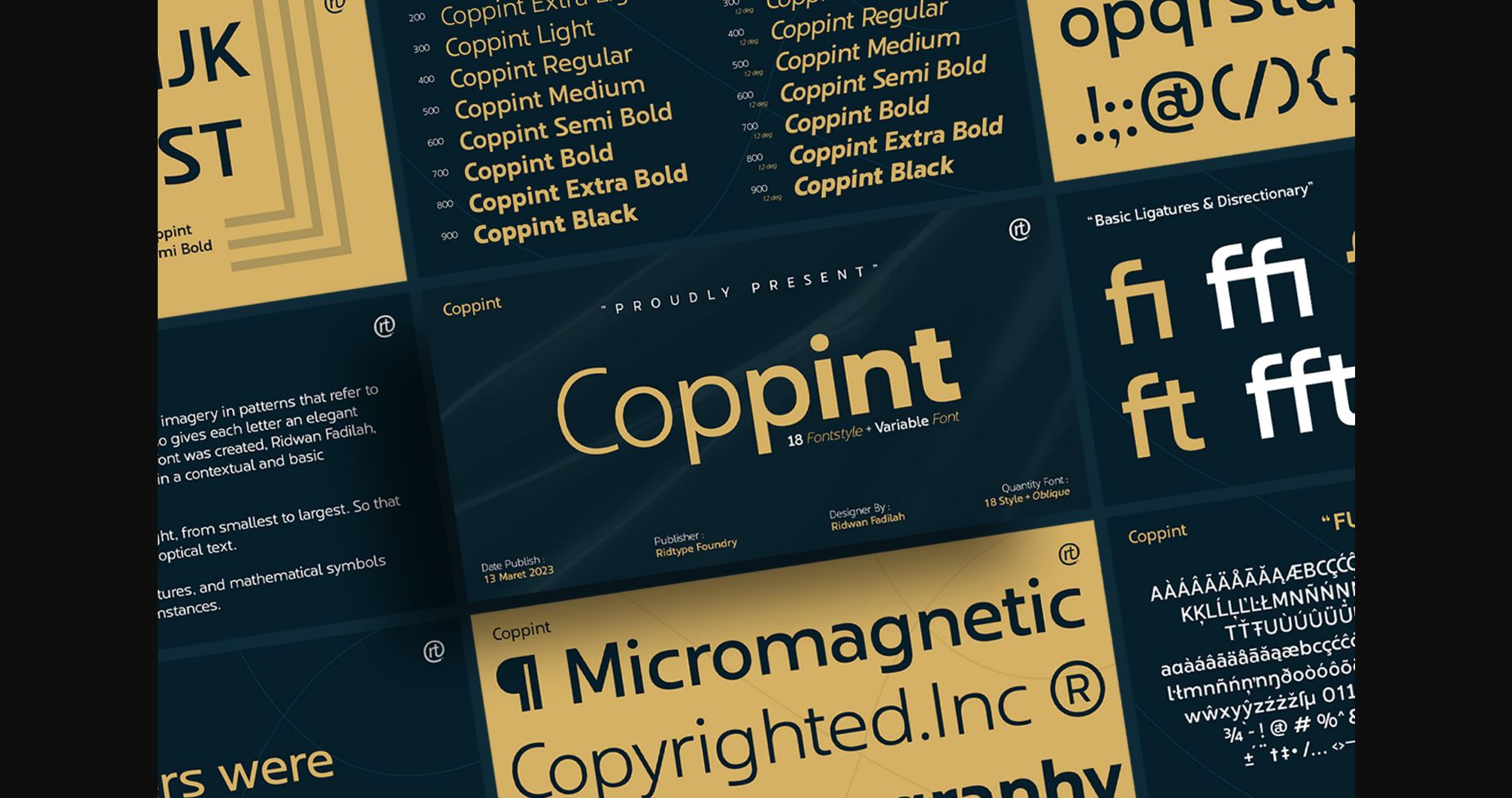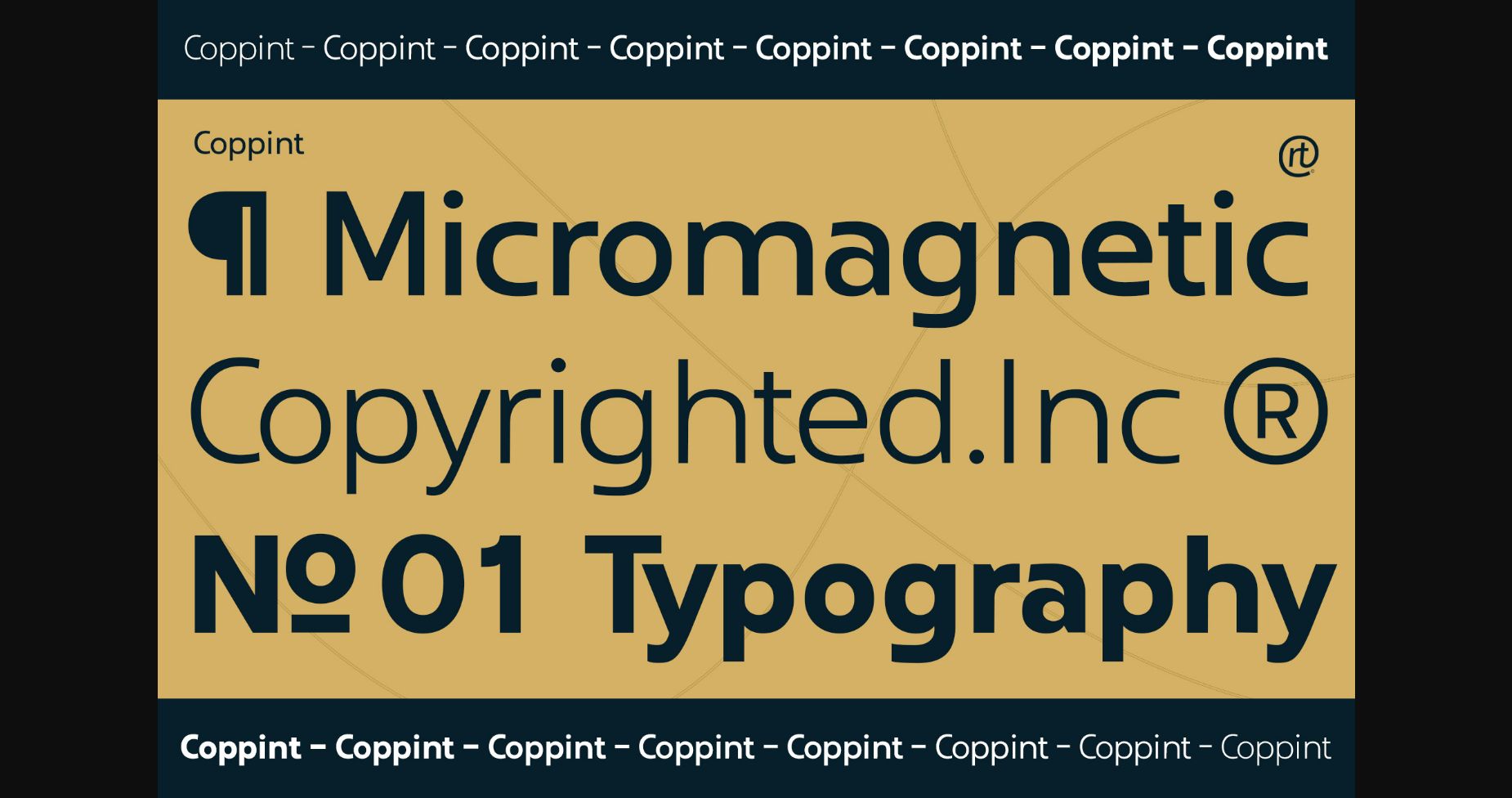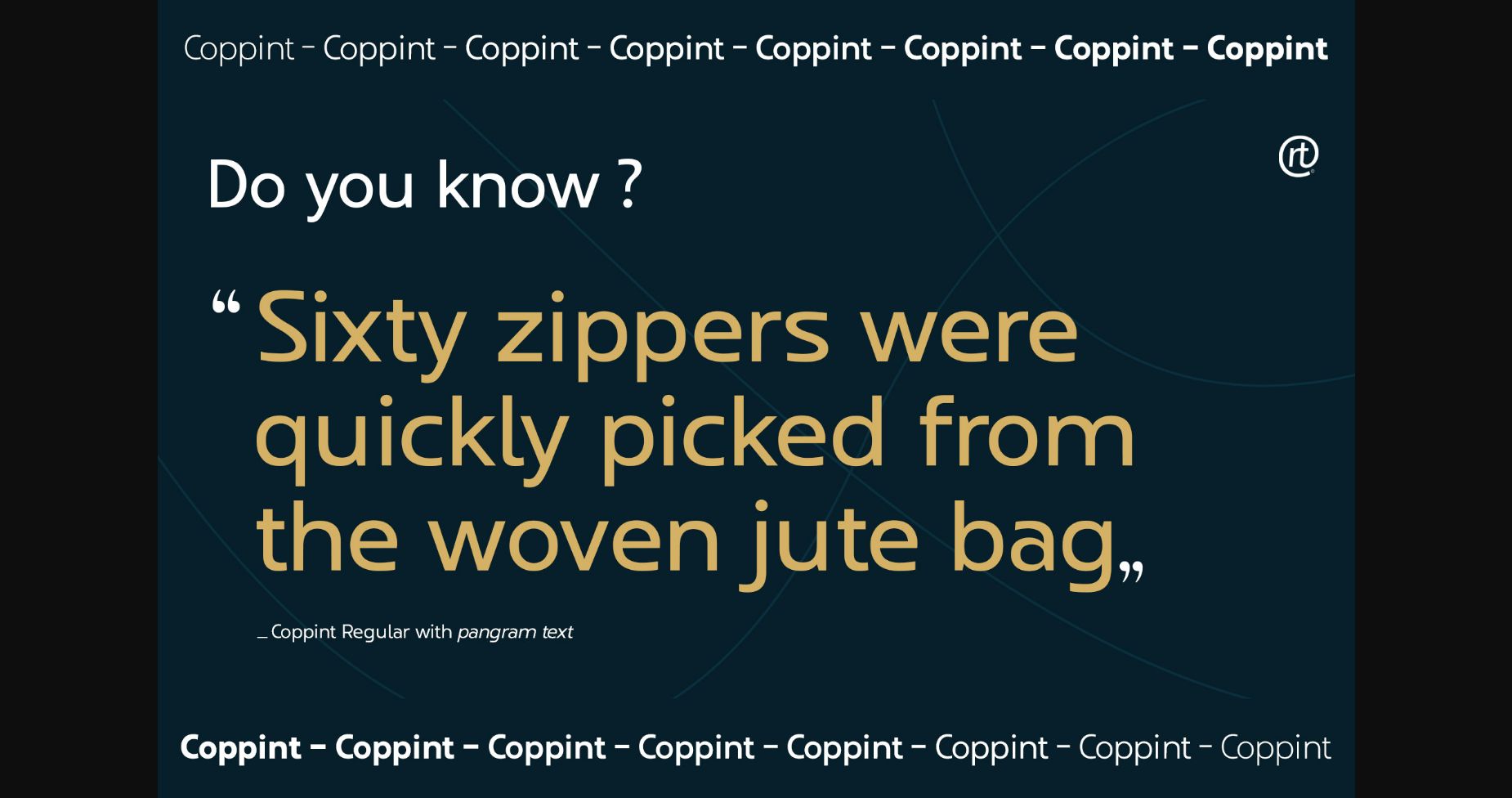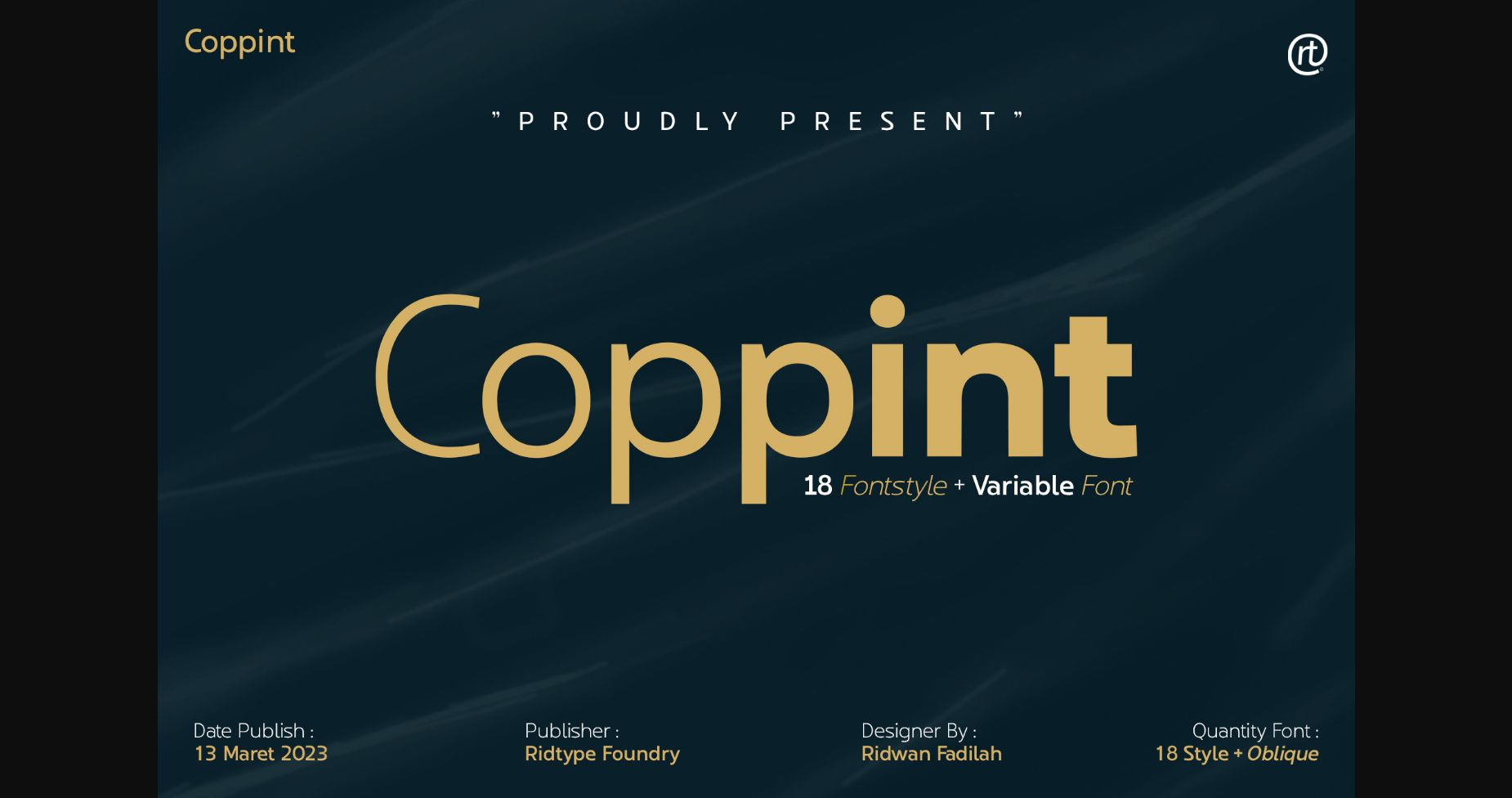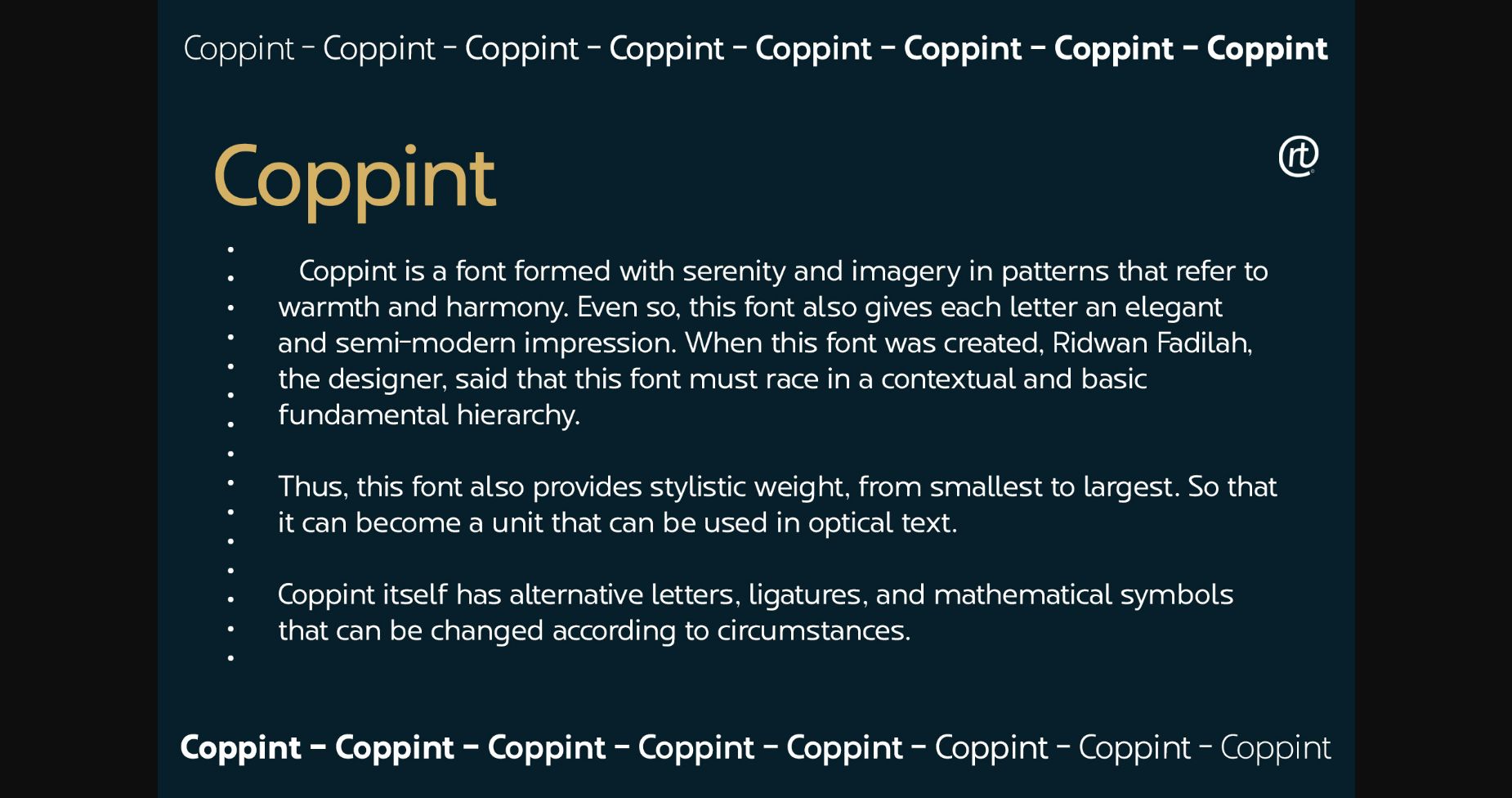
About Coppint Font
Coppint is a font formed with serenity and imagery in patterns that refer to warmth and harmony. Even so, this font also gives each letter an elegant and semi-modern impression.
Thus, this font also provides stylistic weight, from smallest to largest. So that it can become a unit that can be used in optical text.
Coppint itself has alternative letters, ligatures, and mathematical symbols that can be changed according to circumstances.
Thus, this font also provides stylistic weight, from smallest to largest. So that it can become a unit that can be used in optical text.
Coppint itself has alternative letters, ligatures, and mathematical symbols that can be changed according to circumstances.